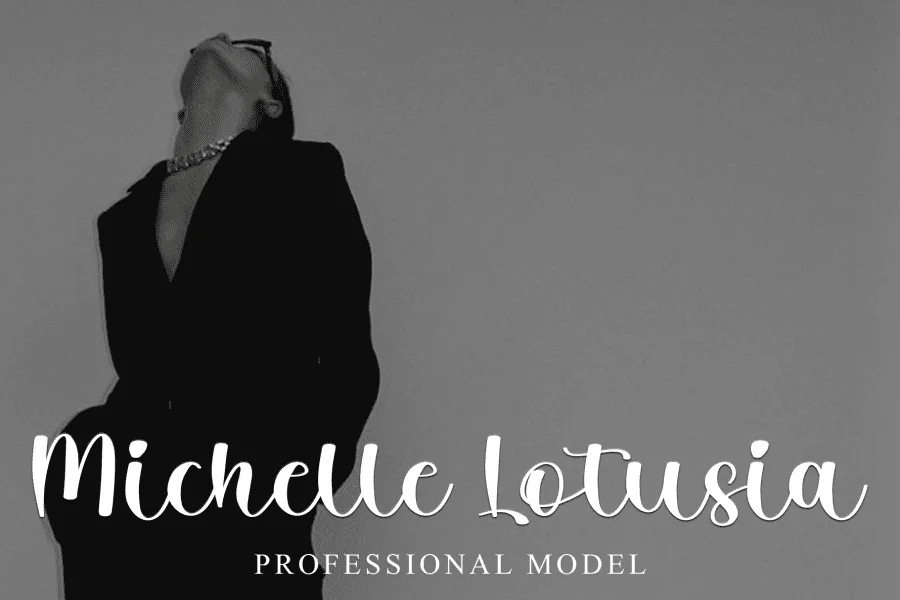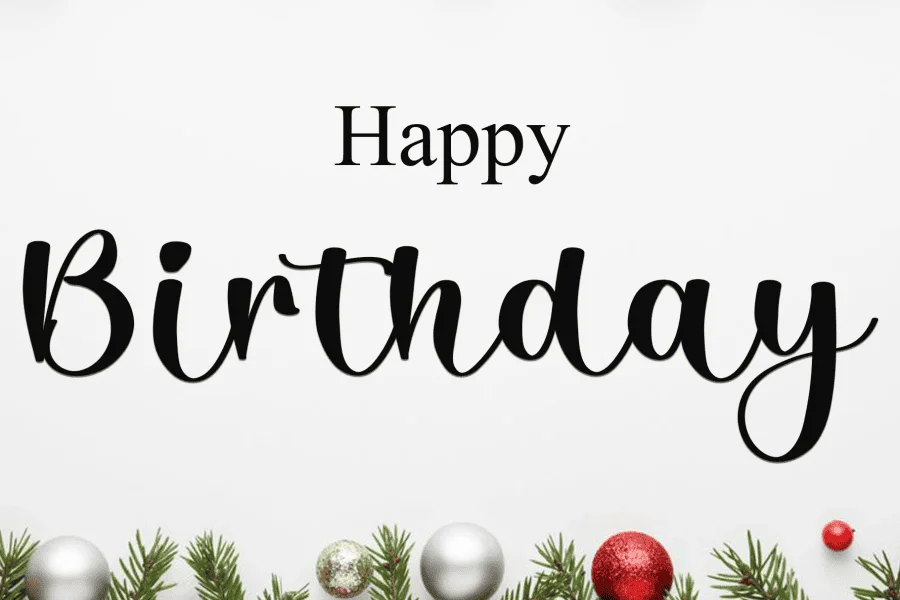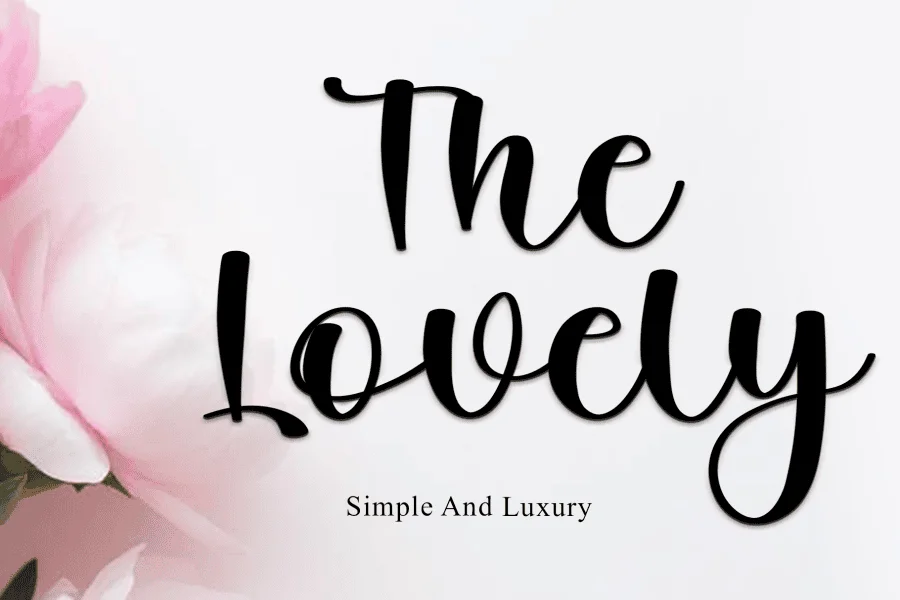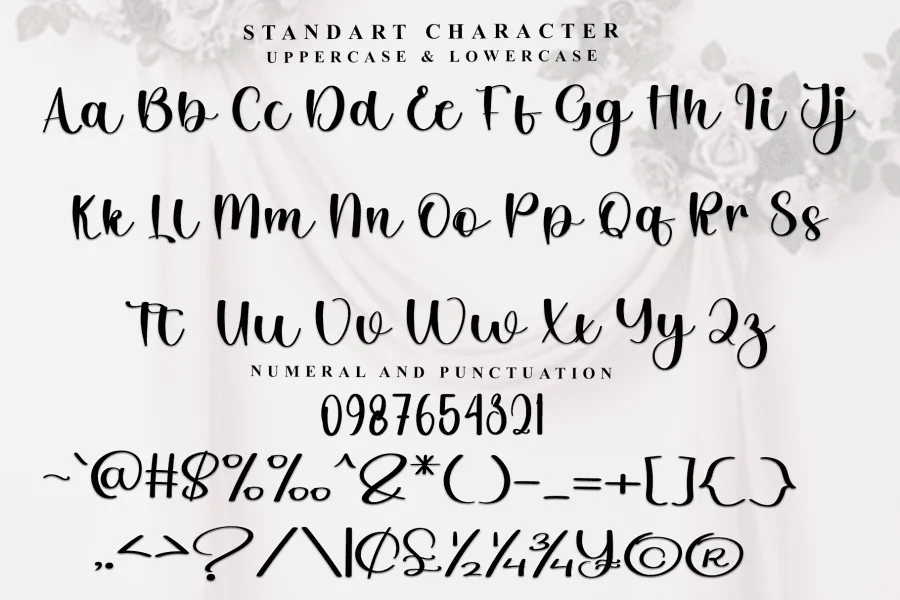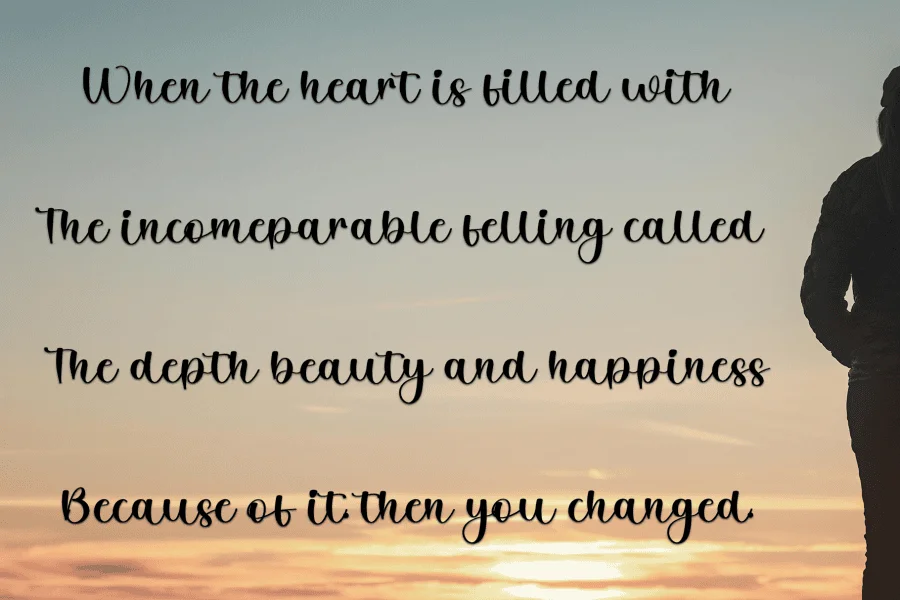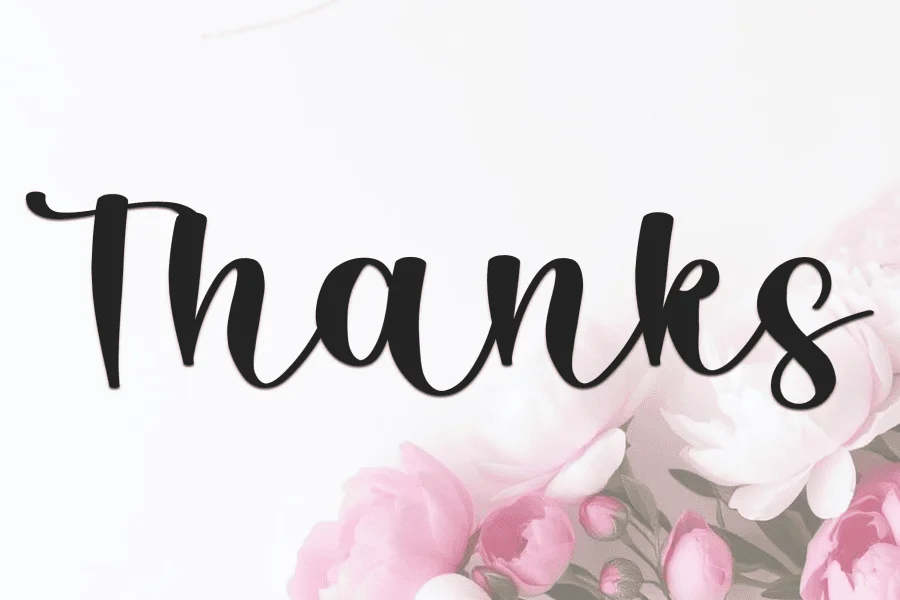
Shopia holiday is a contemporary calligraphy script typeface that balances a casual, personal tone with an elegant, modern structure. It features a fluid, rhythmic flow with a distinct brush-pen aesthetic, characterized by a high contrast between thick downstrokes and delicate, looping upstrokes. The overall construction is upright yet bouncy, giving the text a lively, organic texture that feels both crafted and approachable.
This typeface is well-suited for projects requiring an intimate, stylish touch, such as boutique branding, luxury lifestyle packaging, wedding stationery, and editorial headers. Its expressive rhythm makes it an excellent choice for celebratory social media graphics, greeting cards, and personalized product designs that call for a warm, human connection.